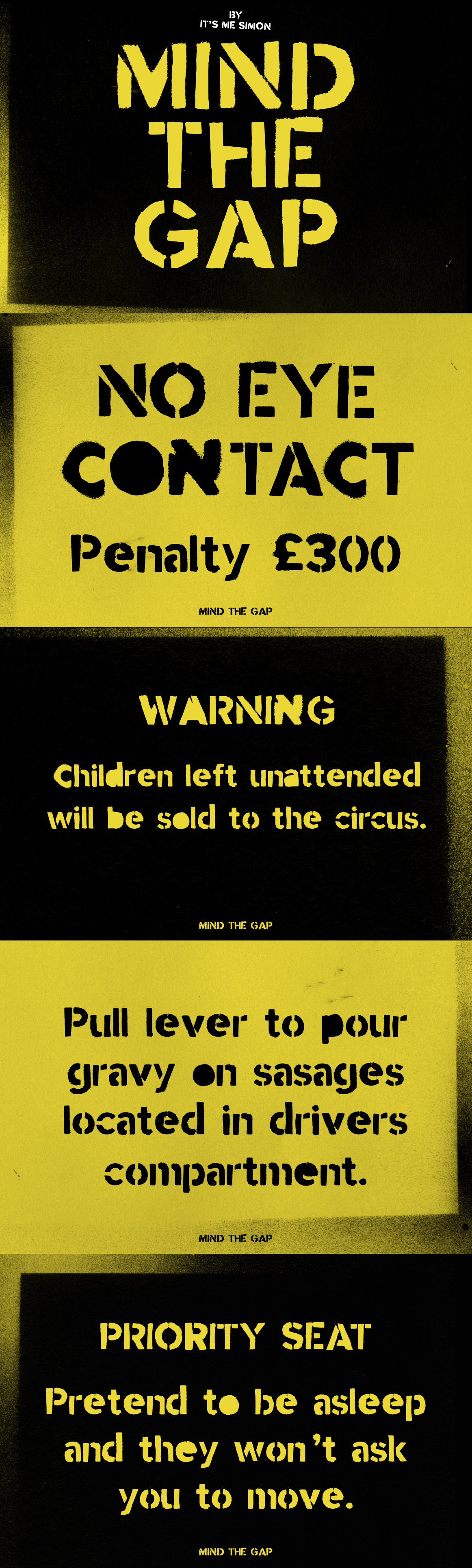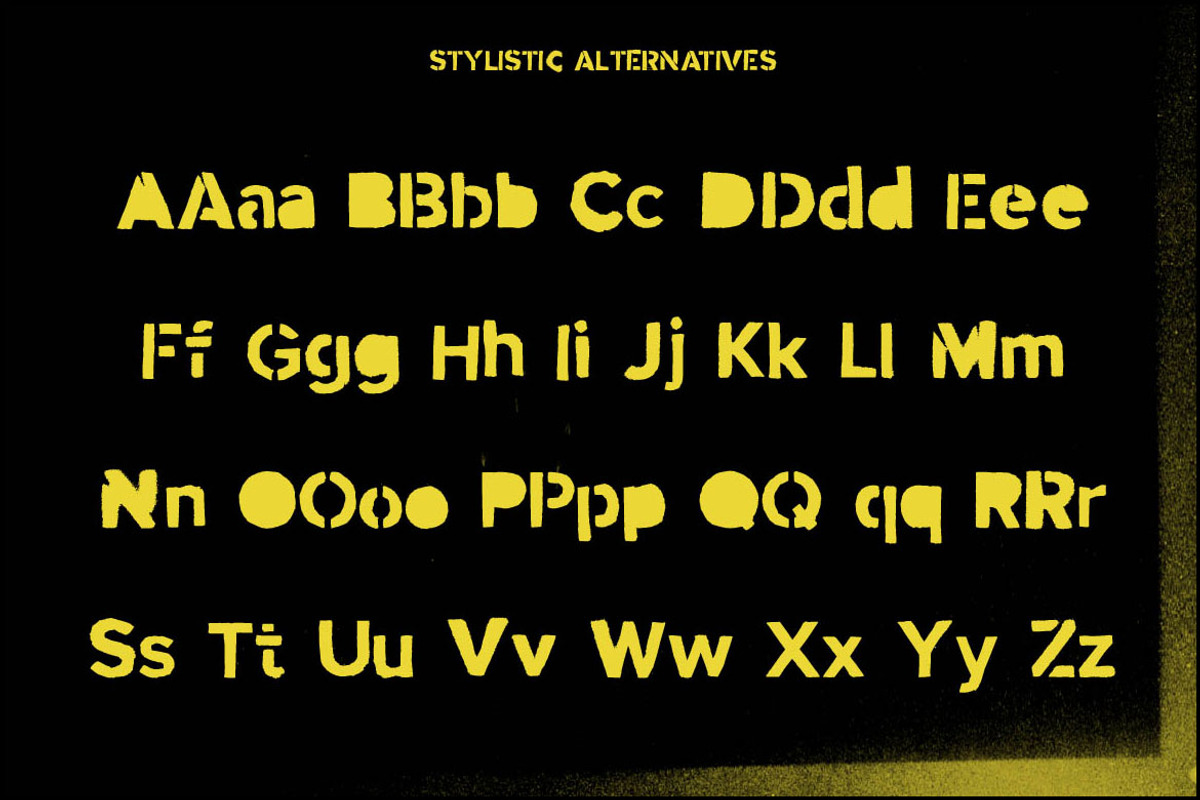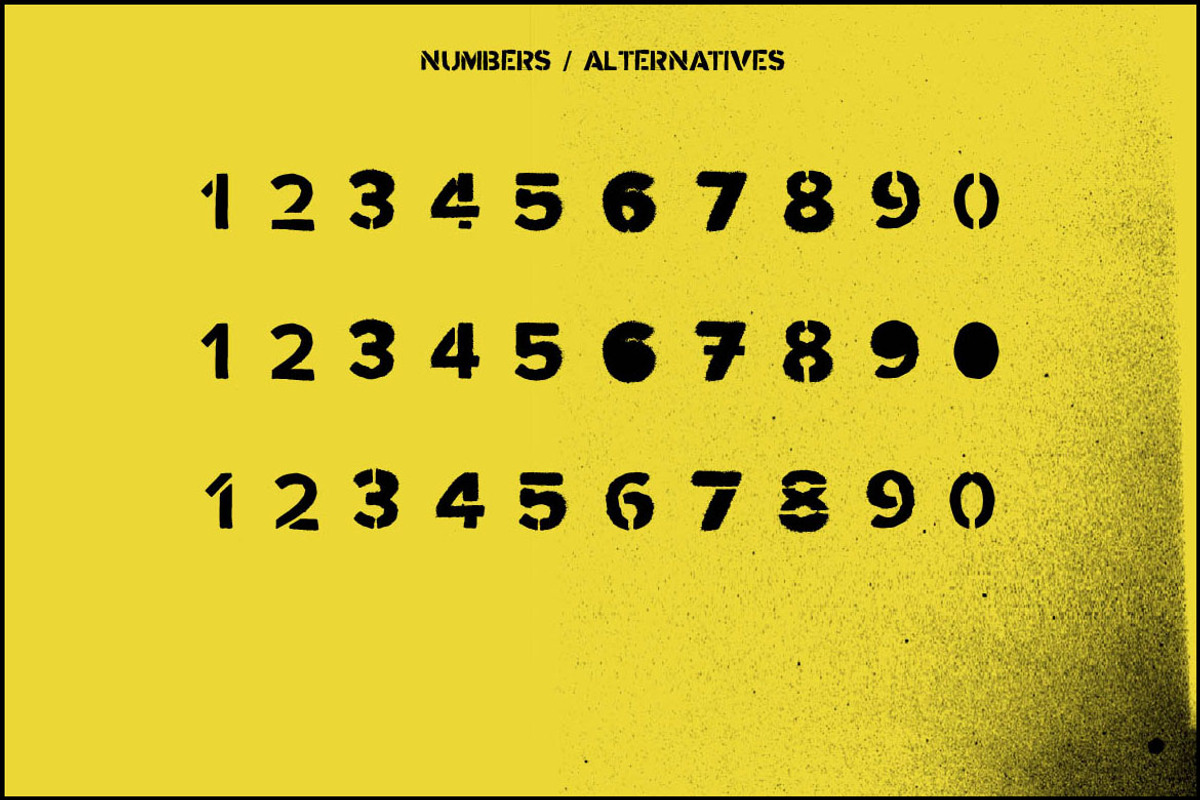
Stencil font mind the gap display
A modern stencil font Mind the Gap was born out of the frustration of the love/hate relationship I have with the daily commute in London.
I'm not sure if it's just a London thing or if the daily commute is hell in New York City, Paris, Madrid, Seoul, Shanghai, Beijing, Mexico City, Moscow, Tokyo and Berlin. And do they say "Mind the Gap"?
Stencil font mind the gap
The stencil font was created by hand cutting letter stencils and spraying them with black paint. This gives it an industrial, almost military look and feel.
It's deliberately not perfect. I wanted it to be dirty, so it looks more real and has a bit of personality.
Display font
It includes one stylistic alternative for uppercase and lowercase A-Z. Plus an additional stylistic alternative for A,B,D,O,P,Q,R and a,b,d,e,g,o,p,q and three alternatives for numbers.